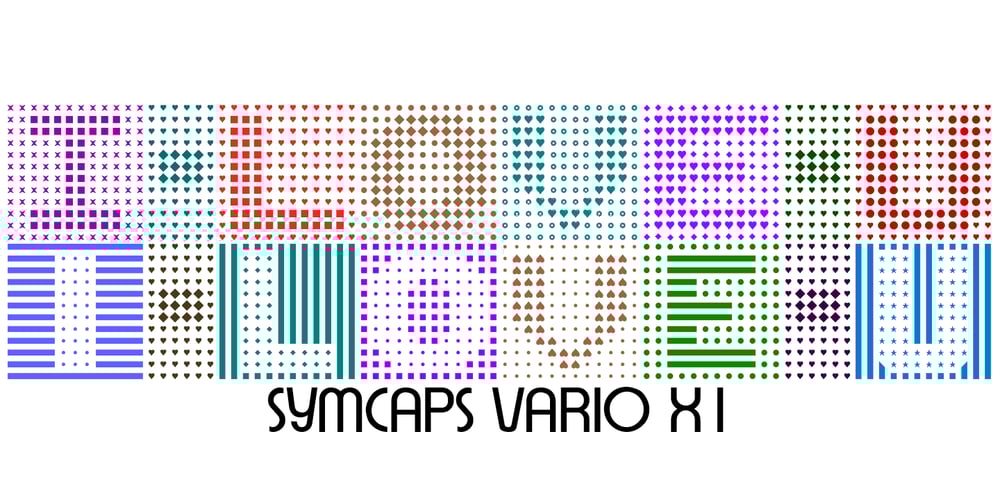
Symcaps Vario X1 Font Family was designed by Denise Koehler and published by Deniart Systems. Symcaps Vario X1 contains 1 styles and family package options. The Symcaps Vario X1 typeface is a monospaced design created to give optically symmetrical message forms. This all-caps alphabet provides two styles of capital letters plus numbers 1-0.